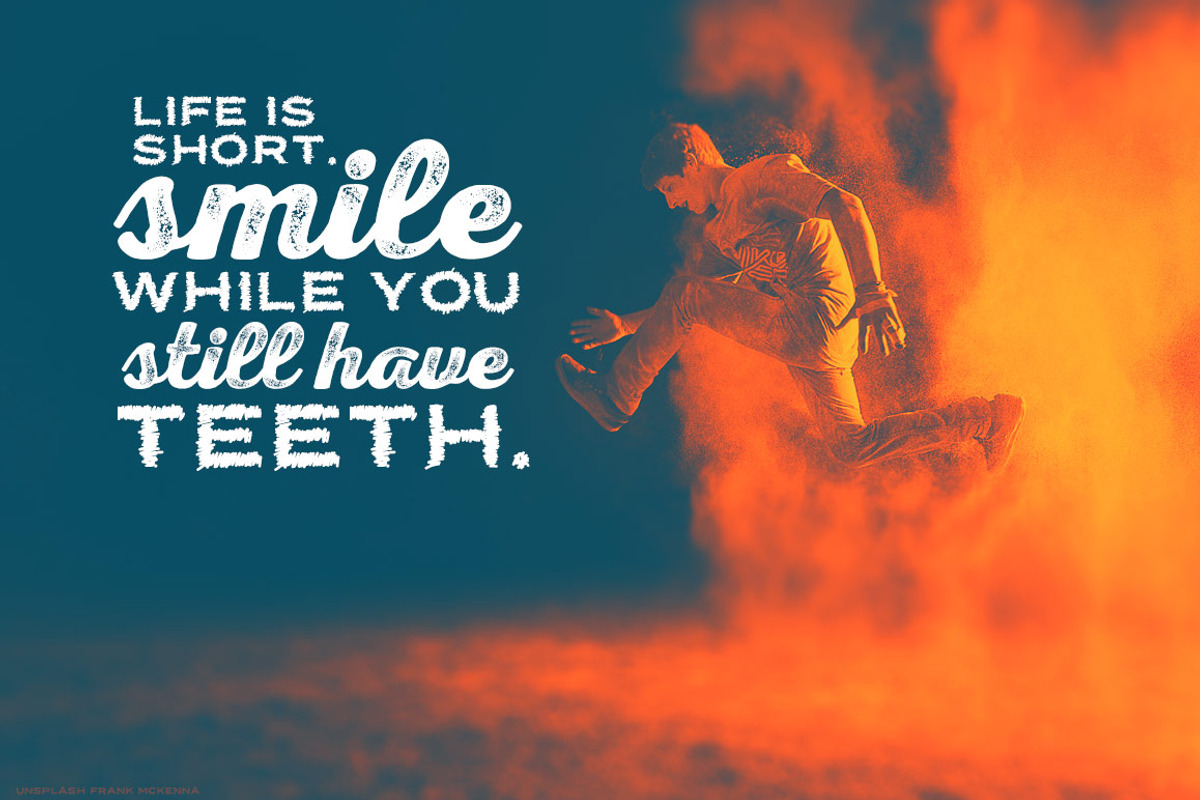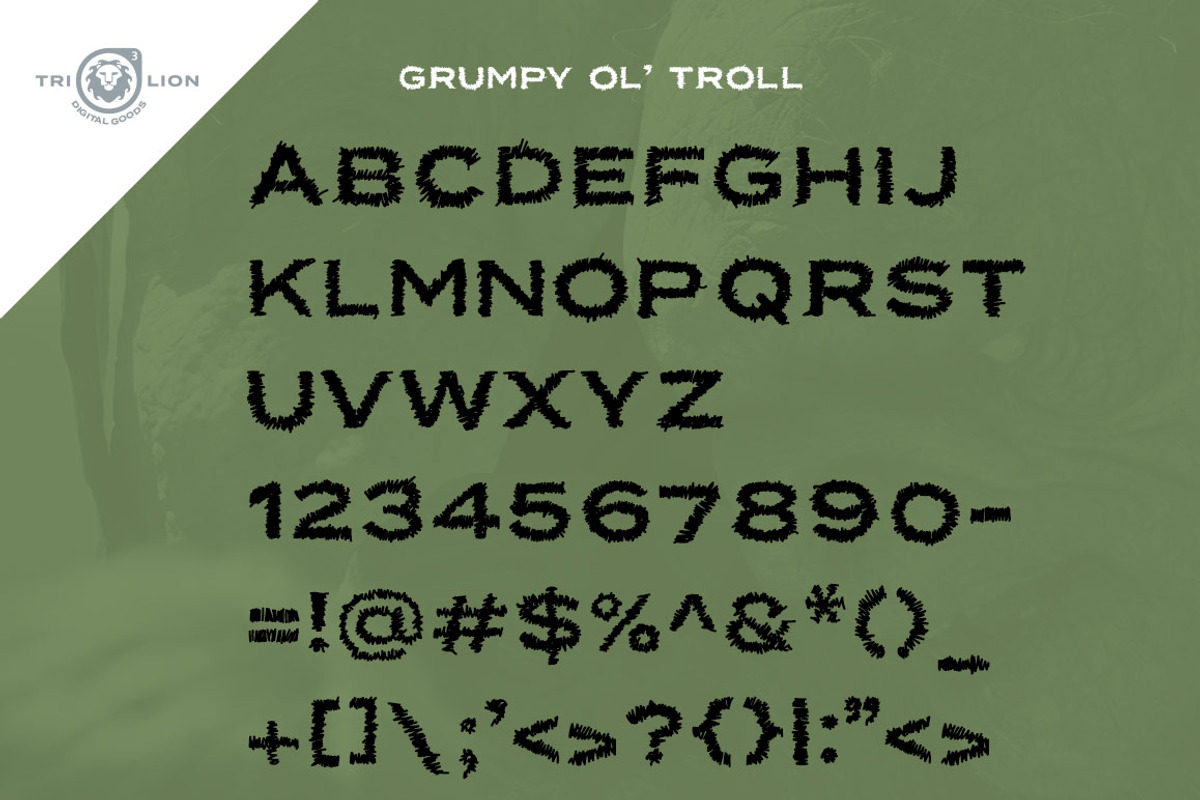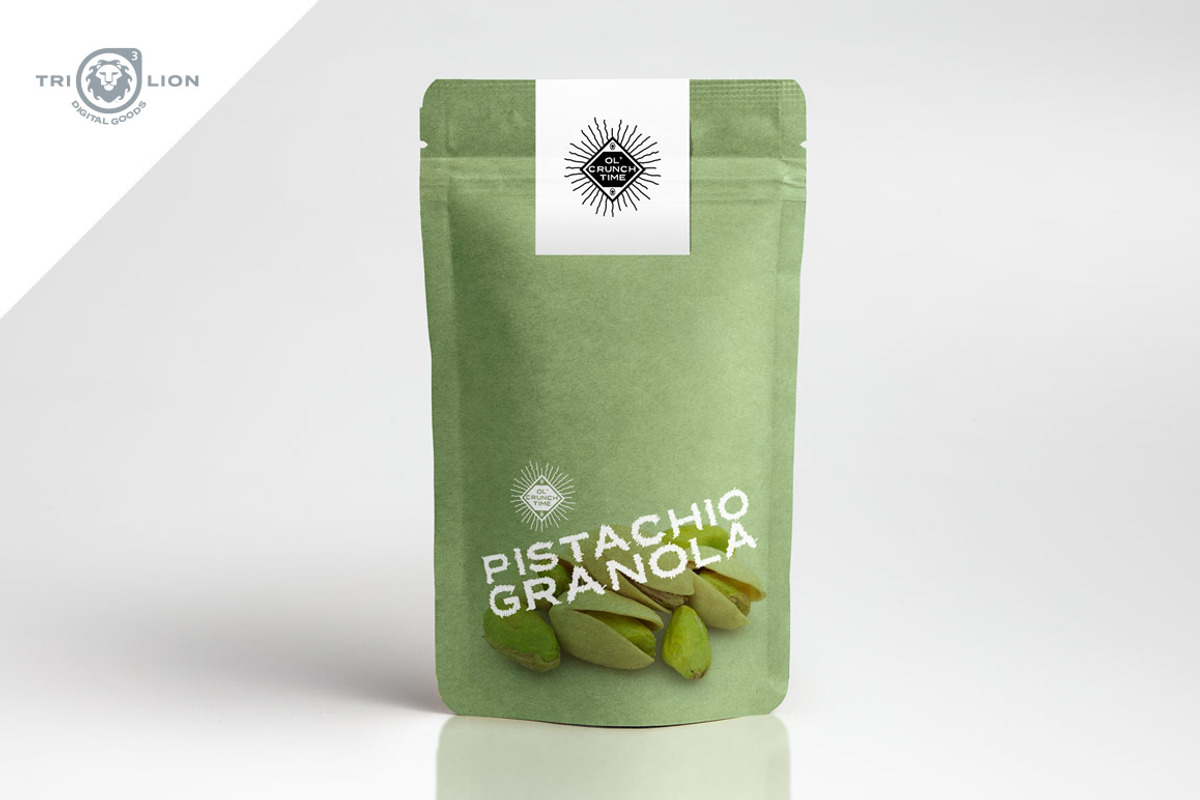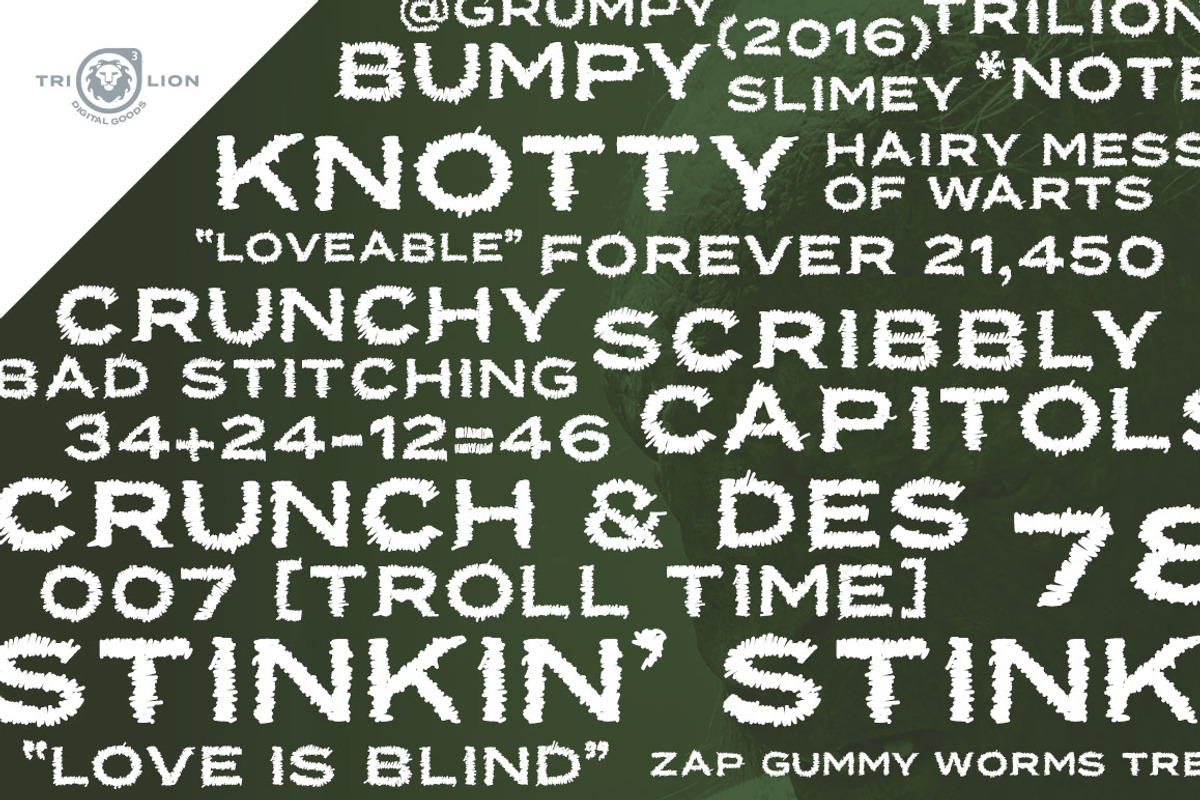
Grumpy Ol' Troll - Stitched Font
Grumpy Ol' Troll - Stitched Font by Brian White Design Goods is a font selected for branding, posters, packaging, typography.
- Grumpy Ol' Troll features lowercase, numerals & punctuation.
- Completely hand drawn with unique characters for each glyph.
Why Grumpy Ol' Troll - Stitched Font is worth a look
Grumpy Ol' Troll - Stitched Font by Brian White Design Goods fits naturally into Branding, posters, packaging, typography.